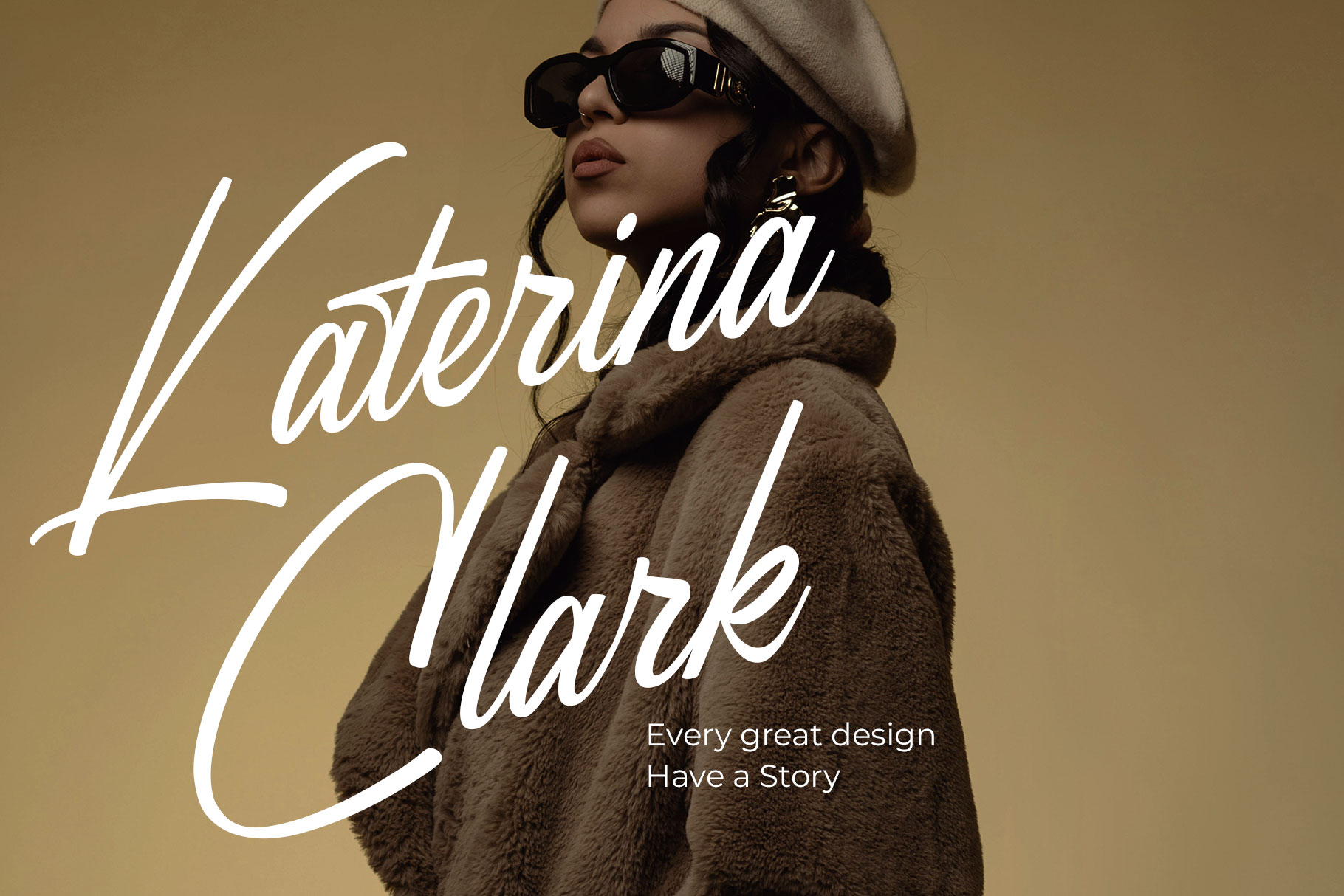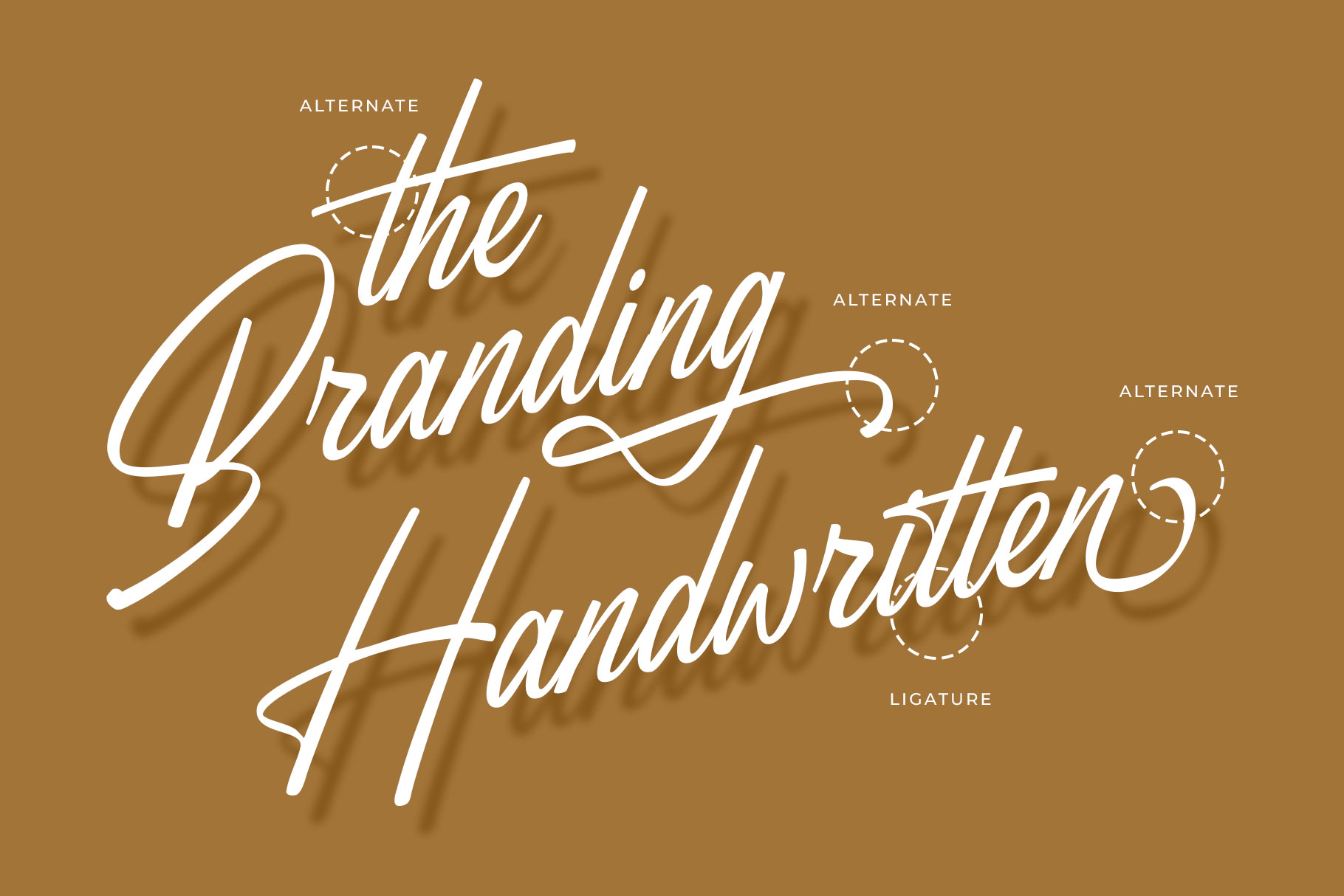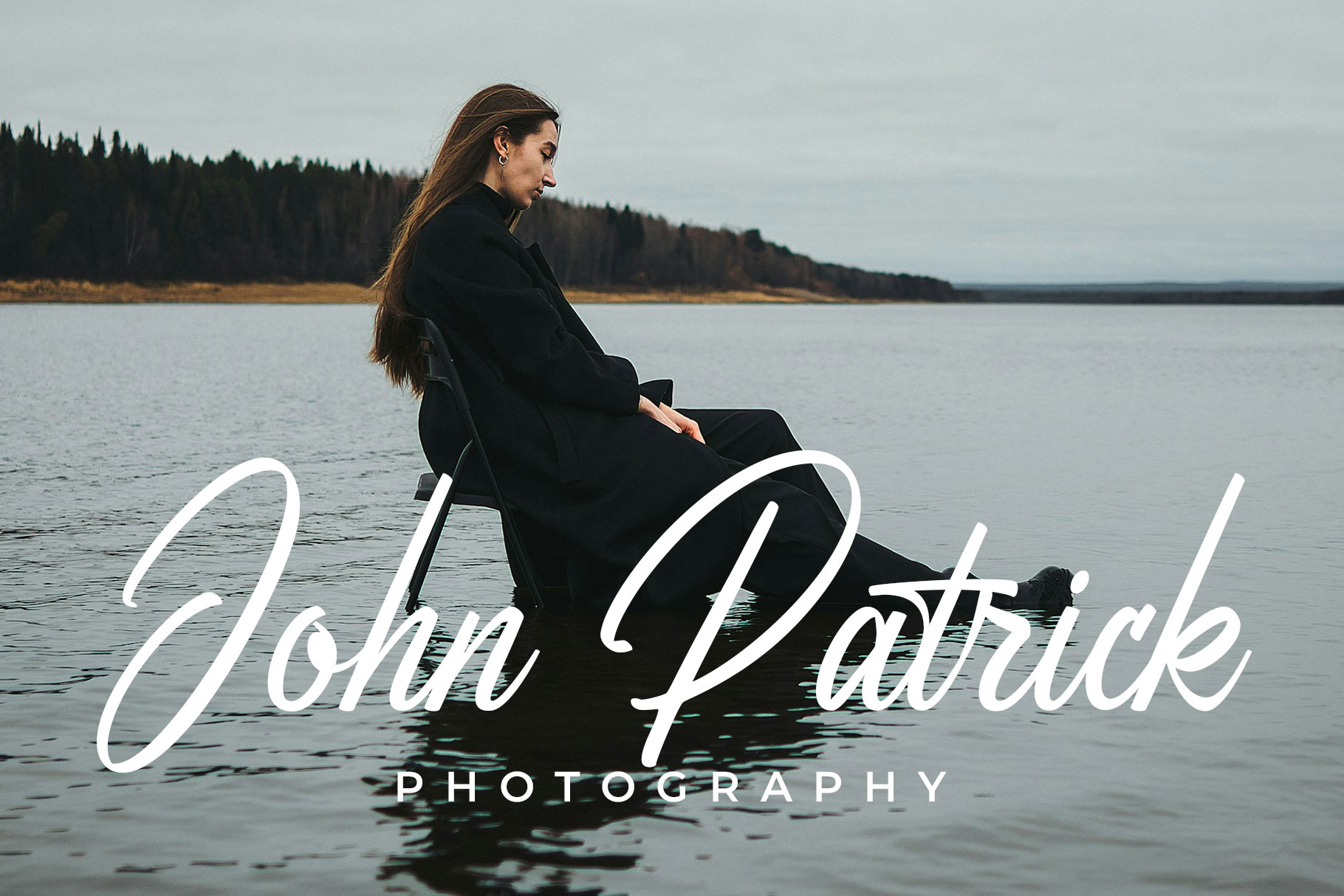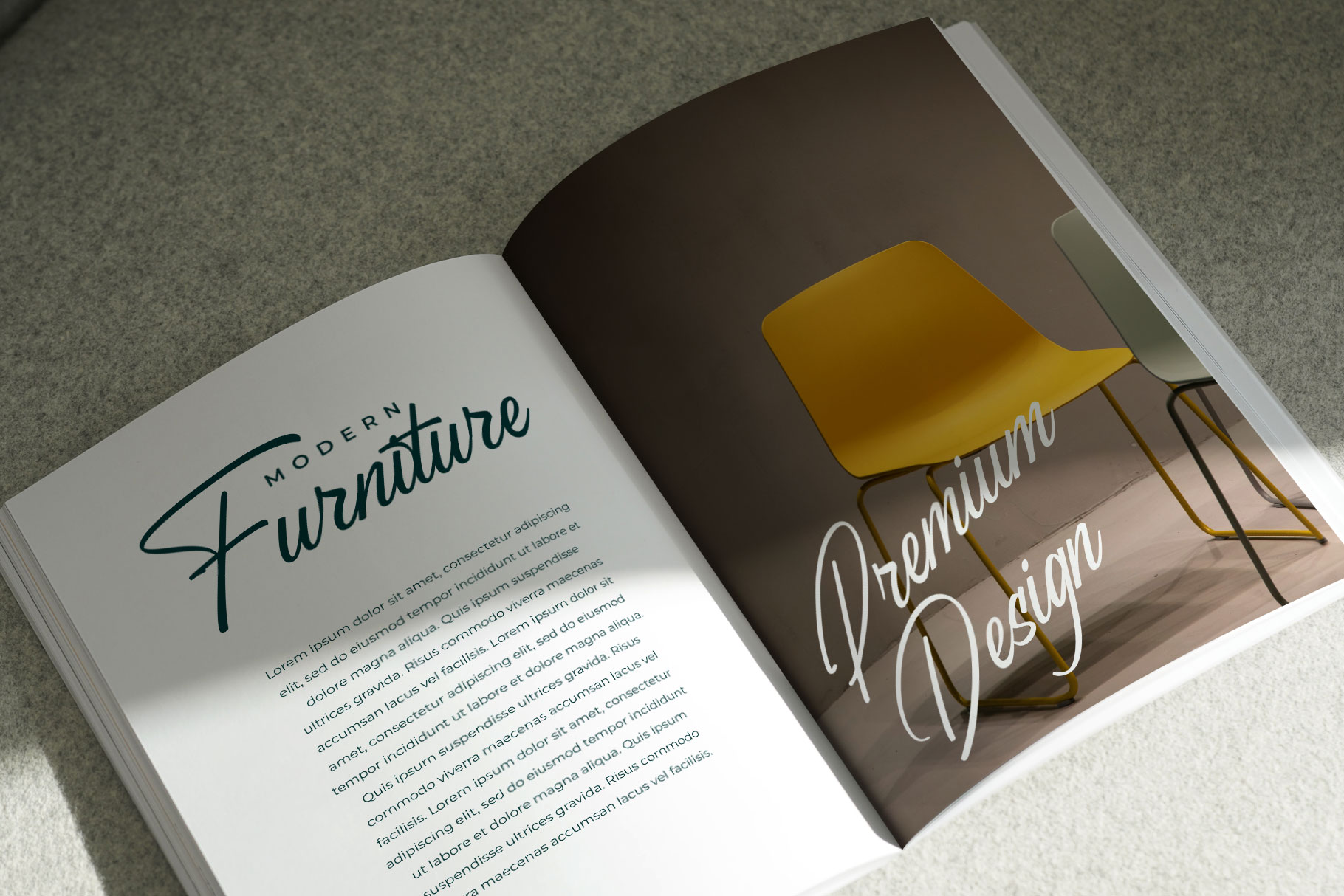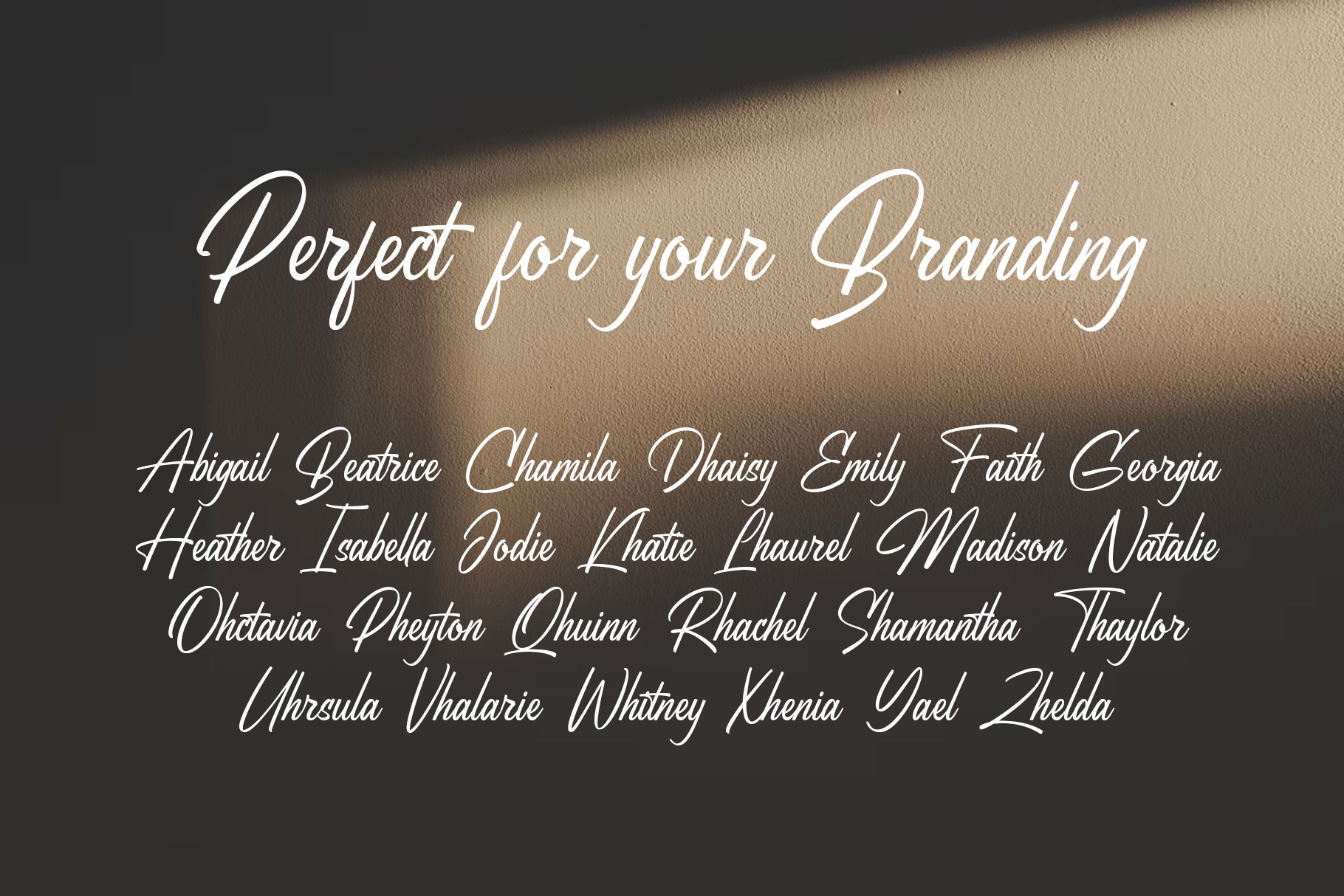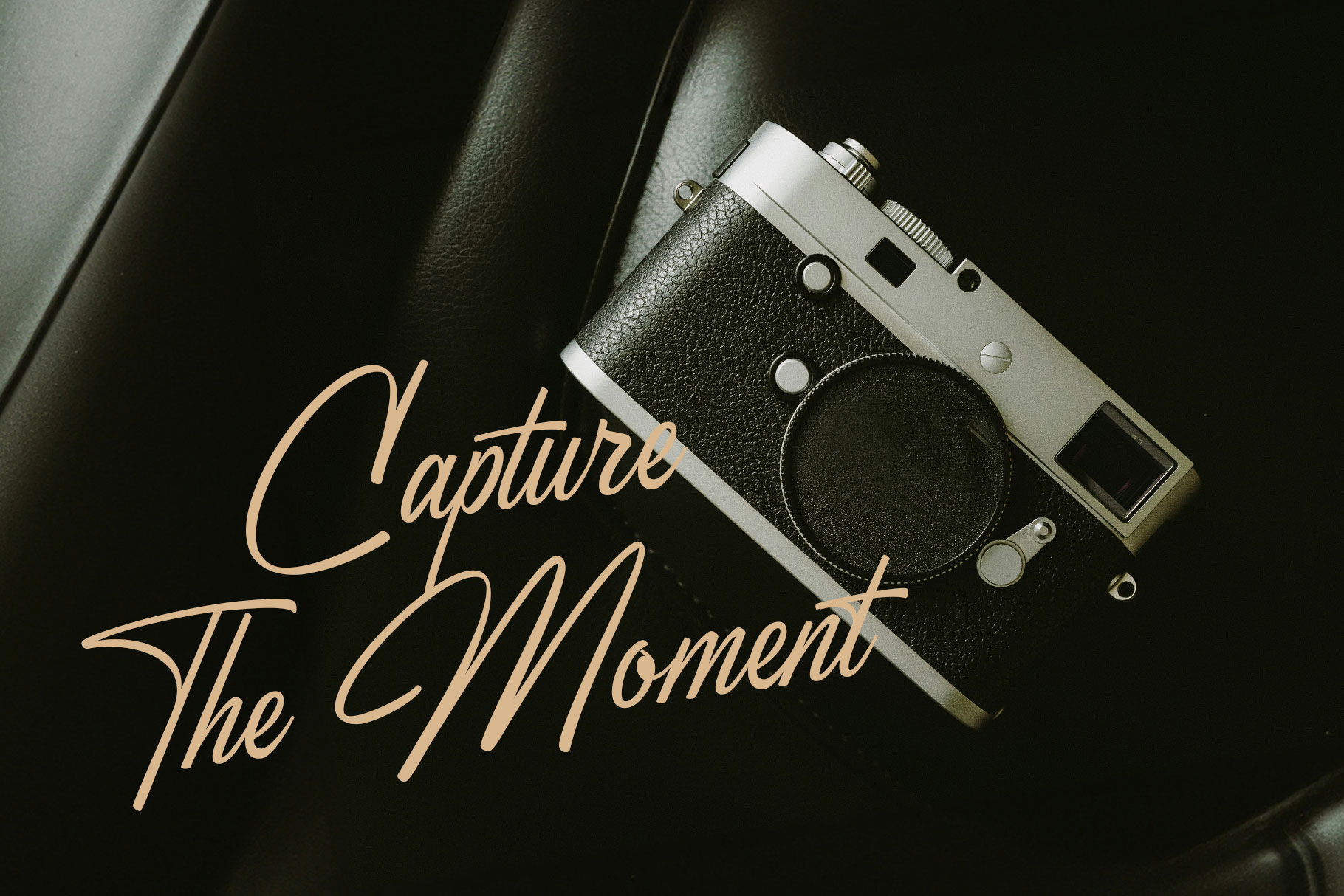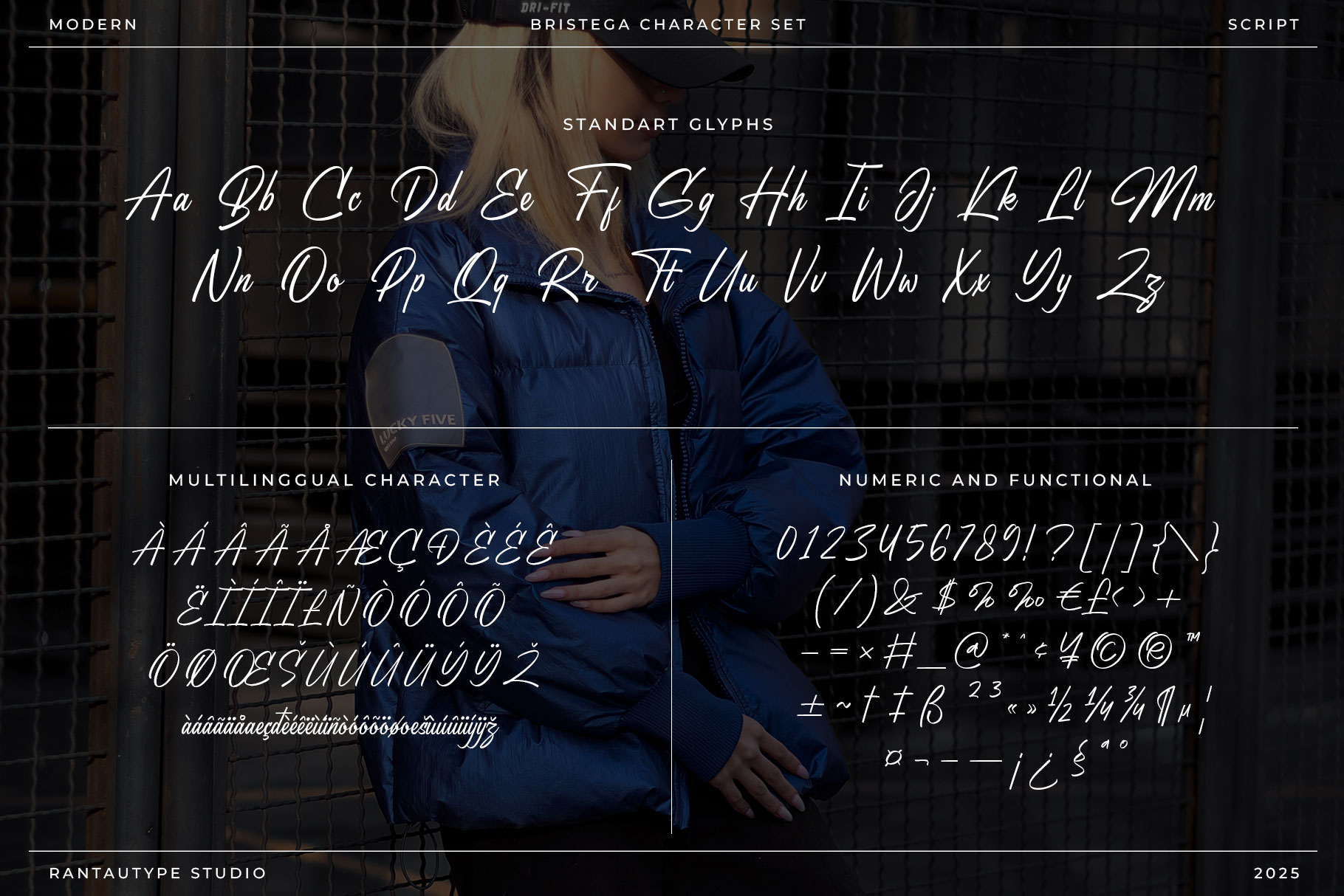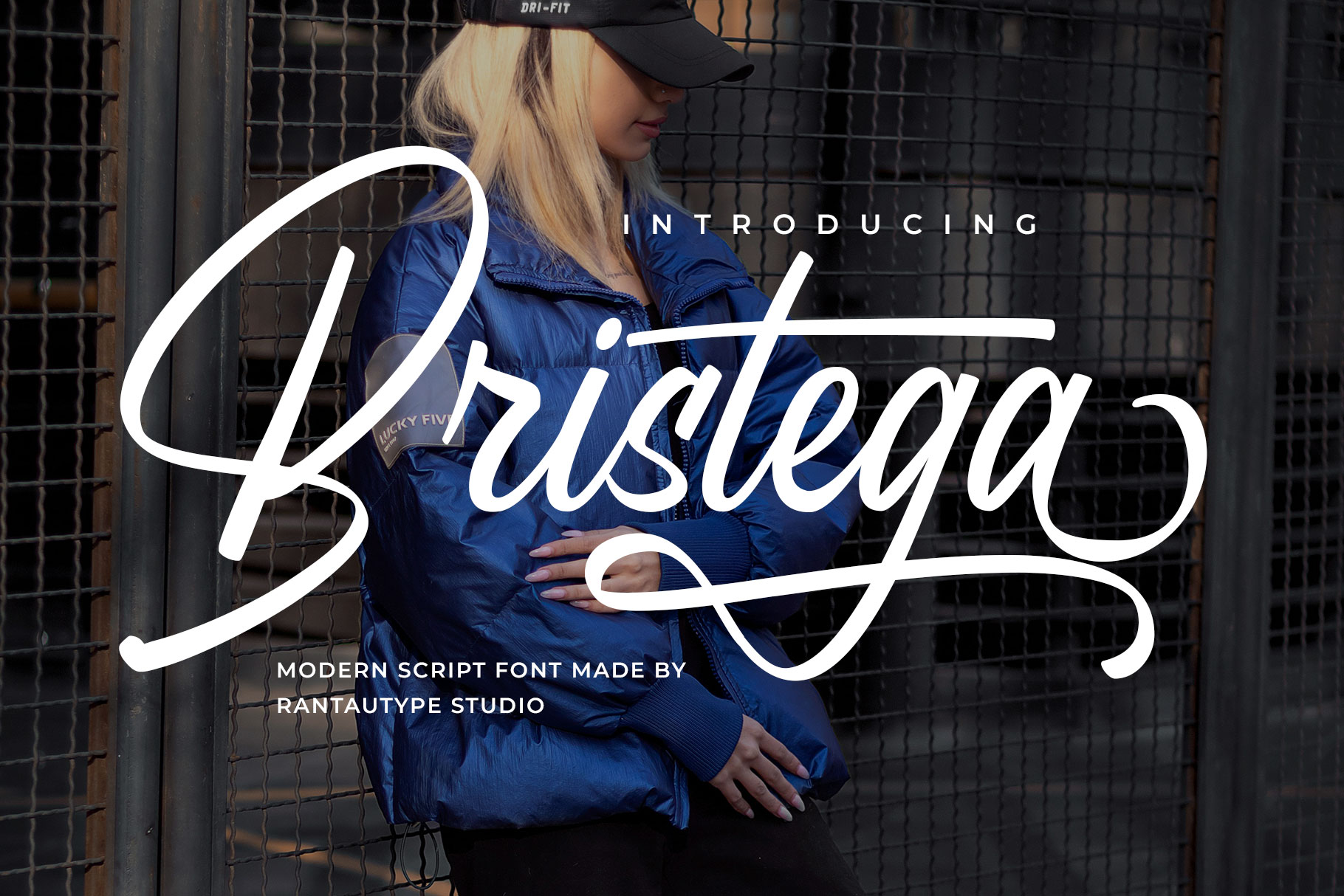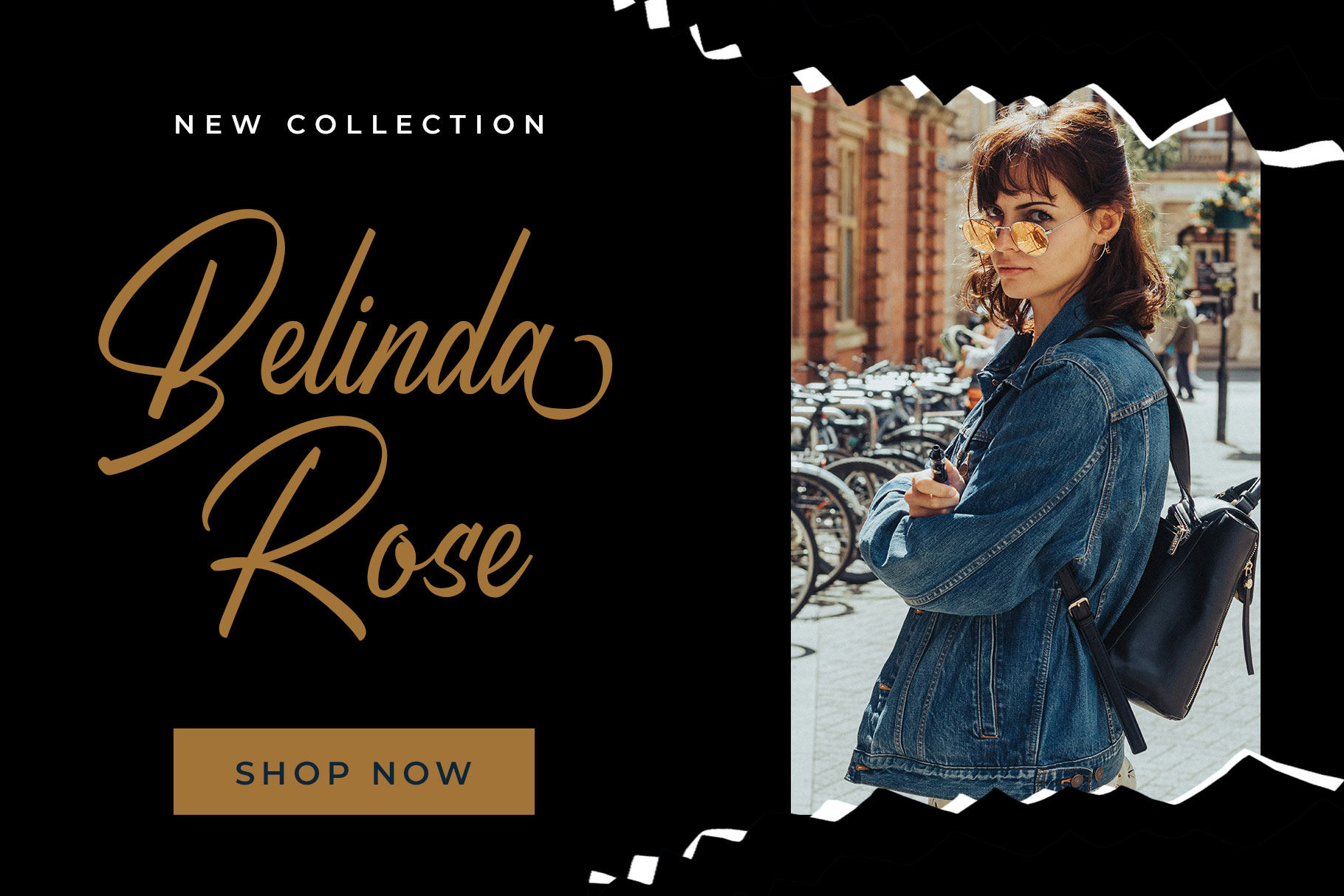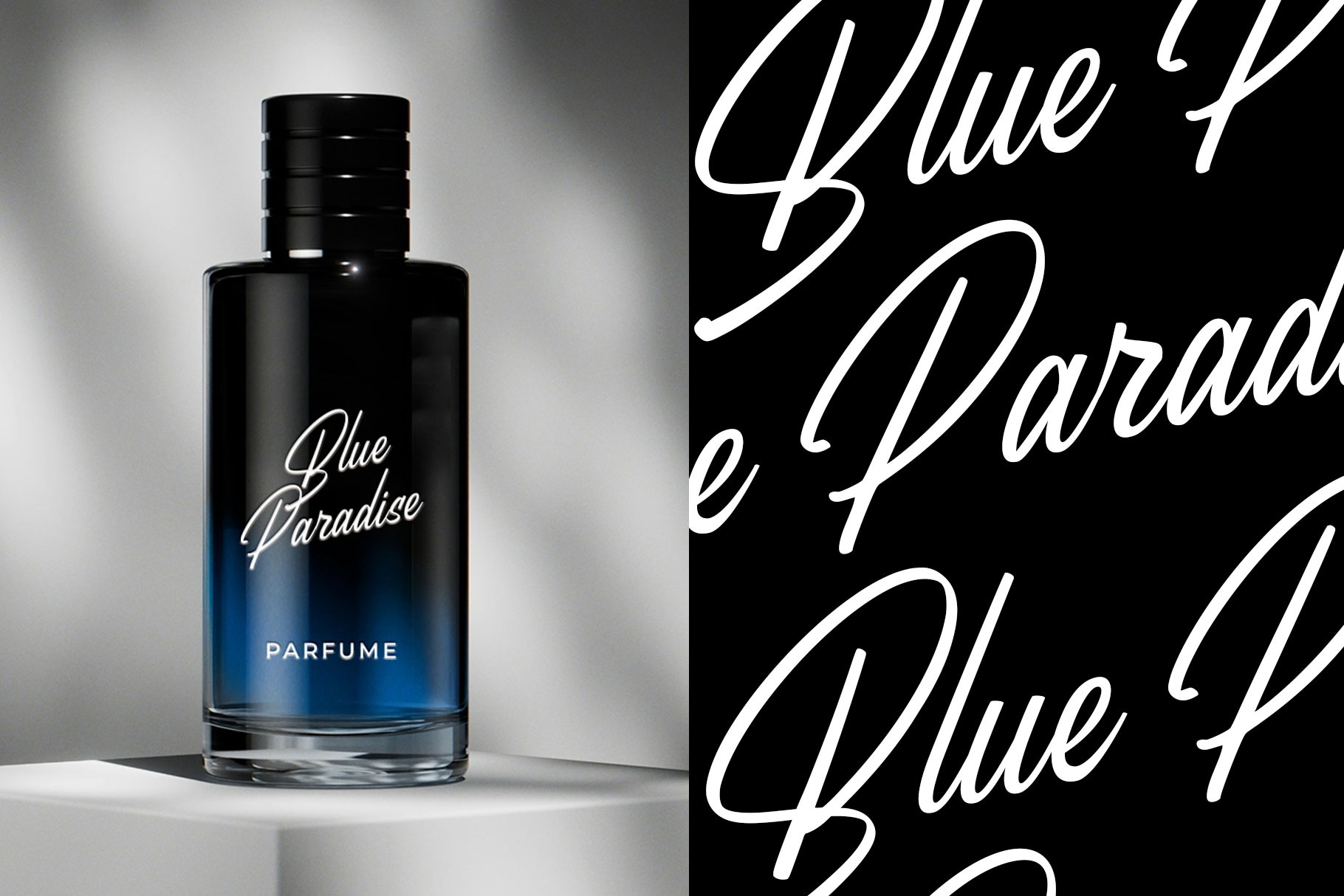
Bristega Modern Script Font
Bristega is handwritten script font with modern stylist look. Bristega is a perfect choice for any creative endeavor, lifestyle design such as logos, title, watermark on photography, cover, branding, display and magazine, wedding event, corporate brand, quotes, album cover, business card, business project, company branding and more project with handwritten taste.